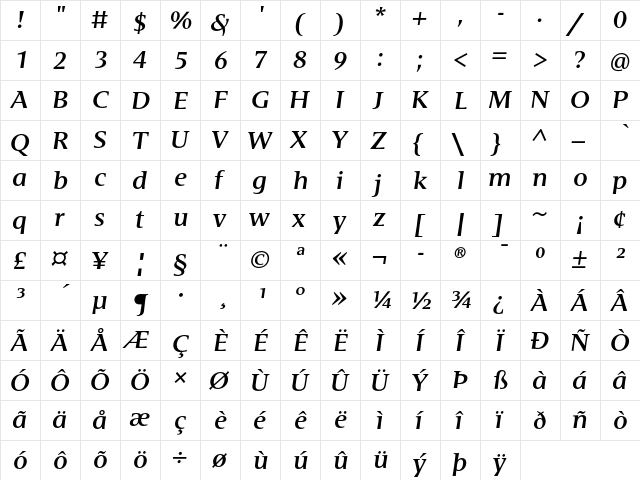
Areplos Text Pro Italic
| Foundry | Jan Solpera |
| Designer | Jan Solpera |
Design Context for Areplos Text Pro Typeface
Areplos Text Pro is a composed and adaptable typeface that performs quietly and consistently across a wide range of design contexts. The dynamic lean of this cut emphasises speed and emphasis in any layout.
Pro Tip: Try Areplos Text Pro for annotation and caption copy alongside an upright companion — the contrast in angle creates a dynamic but ordered typographic system.